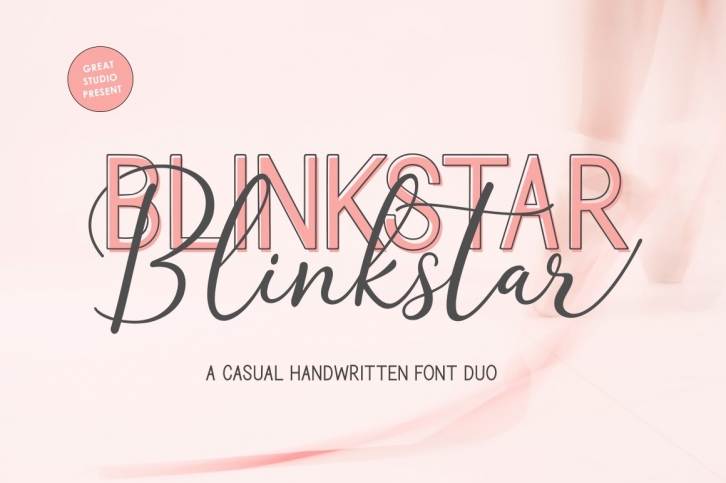
Blinkstar Font Duo Download
Blinkstar Duo is a beautiful font that was designed by Great Studio. It's a great choice for designers and creatives who need such a font. It was released on November 15, 2018 and the file size is 7.71 MB. Blinkstar Duo may give a more youthful, expressive and casual look to your project. It is a very beautiful, refined, elegant, and high-quality font.